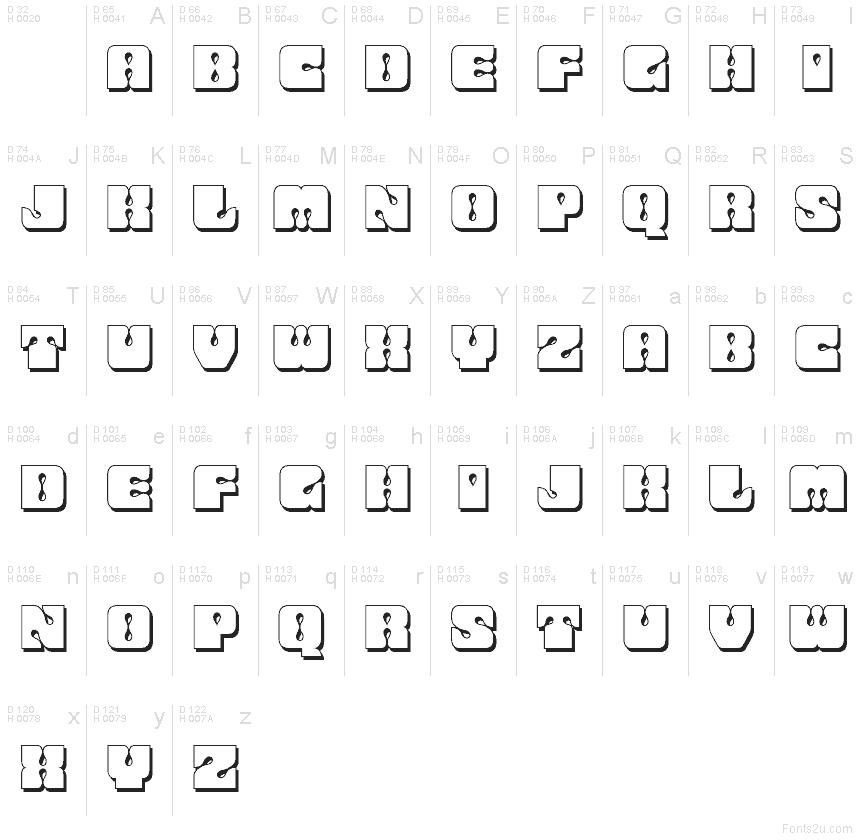
Pioppo 3D Regular
Pioppo 3D font by Vladimir Nikolic is a free display font with an irresistible groovy expanded vibe that catches all eyes. Its bold letters convey an inviting atmosphere through their soft rounded corners, a modern twist on retro geometric typefaces. Additionally, some decorative elements give this unique typeface its signature character.